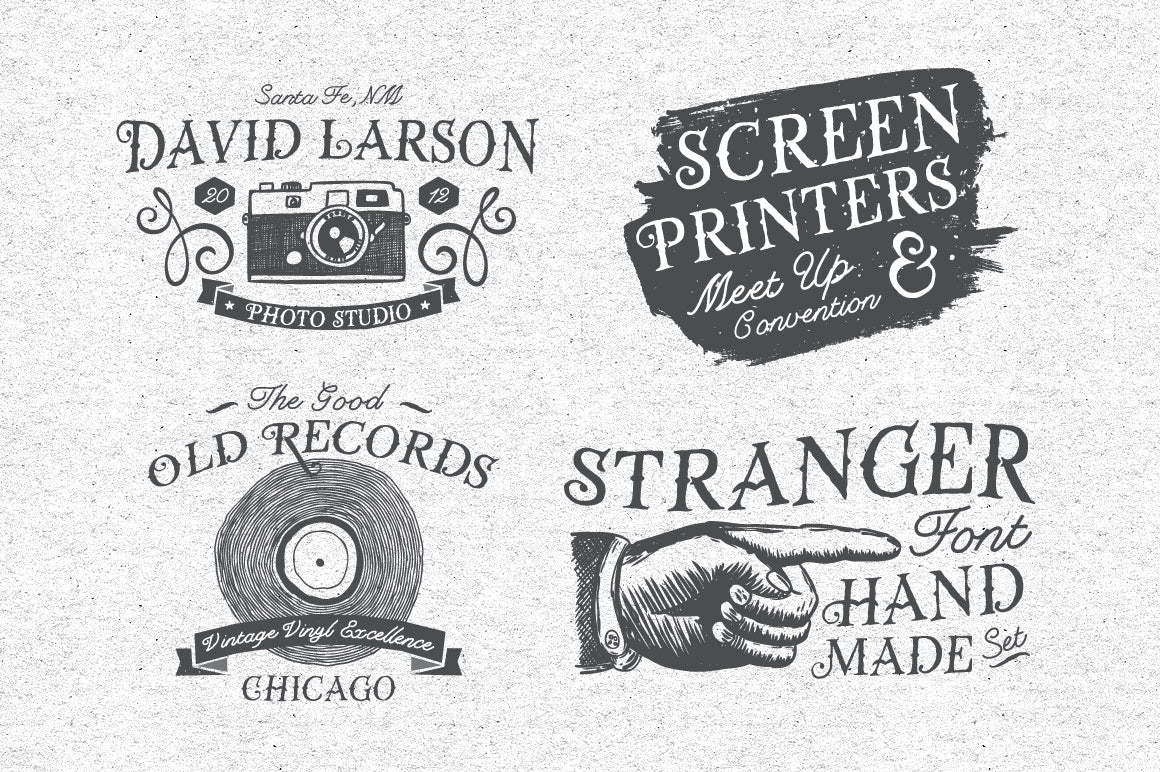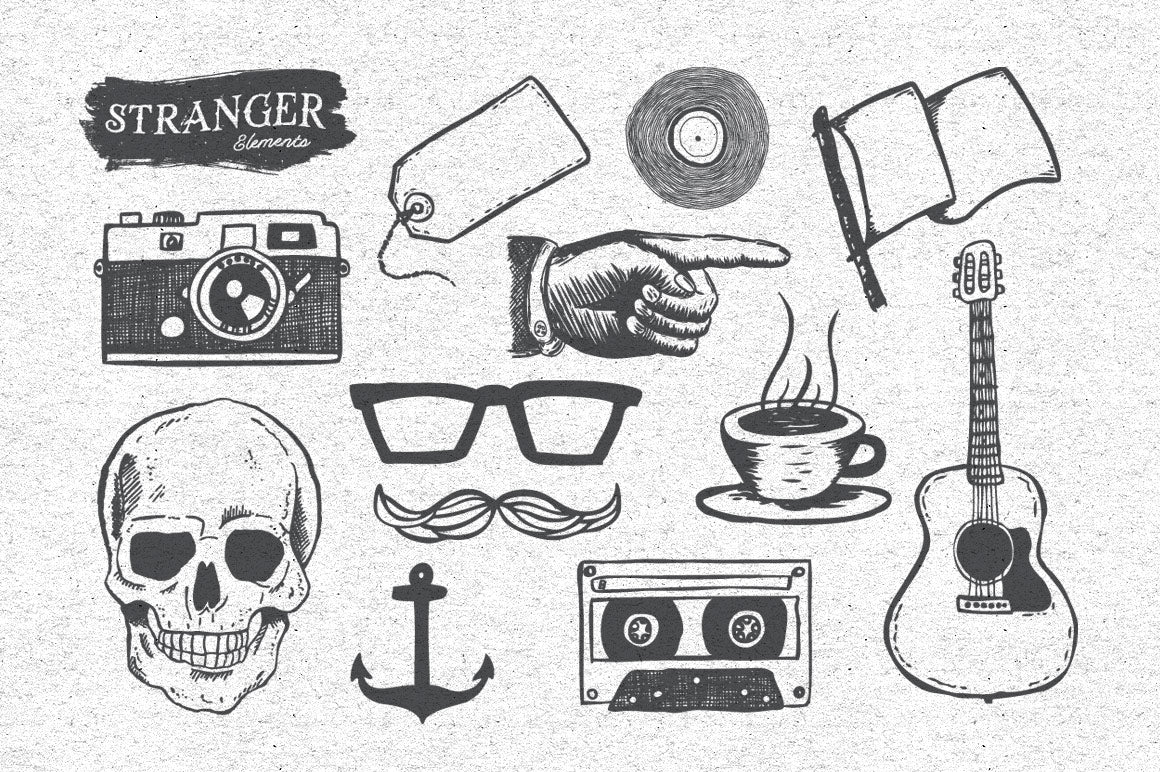
Stranger Font Pack & Vector Graphics
Introducing The Stranger Font Pack! This pack features two hand drawn font faces, plus an incredible collection of vector goodies. This set contains everything you need to complete a really nice hand made design.
1). Stranger - This is the main font in the collection. It contains two sets of uppercase letters, numbers and various symbols and punctuation.
2). Feathered is the secondary font that compliments the main font. This is a hand drawn script font that contains both upper and lowercase letters.
3). 18 Vector banners and badges. This is a handy set for creating labels and logos. The set features a hand drawn look with subtle grunge textures.
4). 12 Hand drawn vector illustrations. These illustrations were all created with pen and ink, then meticulously scanned and vectorized for your design pleasure.
5). 4 Pre-made label designs. These labels were designed using elements contained within this collection. The labels are fully editable in EPS format.